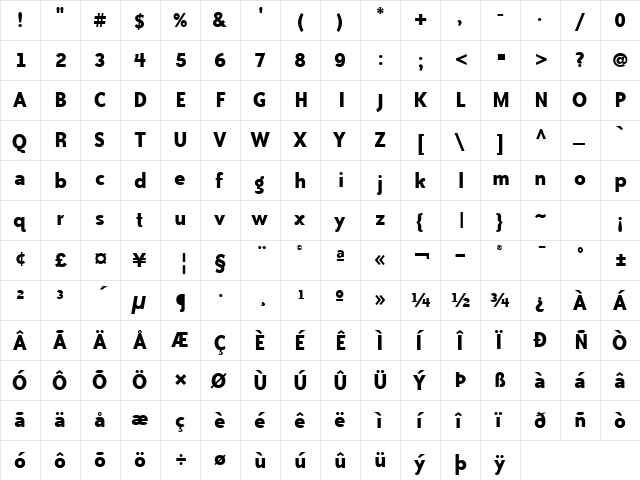
Bailey Sans ITC TT Bold Font Preview
Bailey Sans ITC TT Bold
Bailey Sans ITC TT Bold Font Details
Design Context for Bailey Sans ITC TT Typeface
Bailey Sans ITC TT offers clean, dependable letterforms without strong stylistic allegiance, making it a practical choice for designers who need flexibility. Its bold stroke weight gives it real presence on the page.